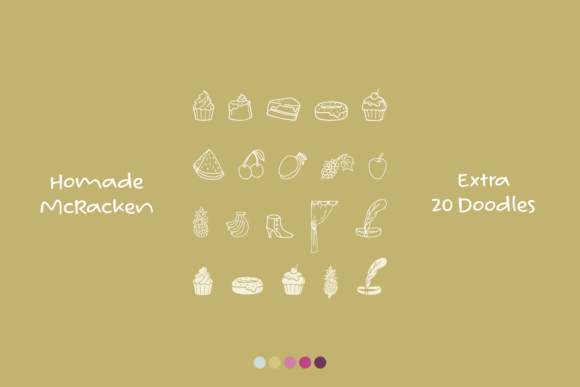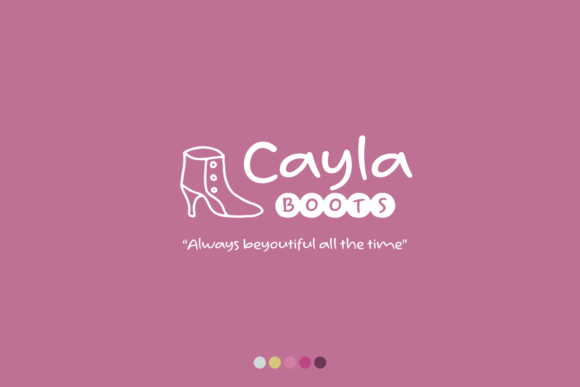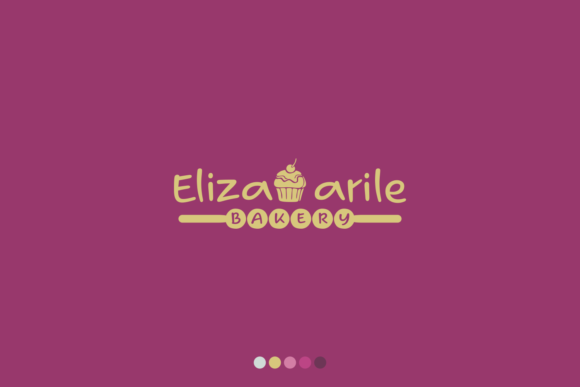
Introduction to Homade McRacken Font
Homade McRacken is a delicious type that you just want to put your teeth in.
It’s fun and handwritten, and has a very playful look and feel It comes with 20 handwritten doodles, added inside the font as extras.
Why Choose Homade McRacken Font?